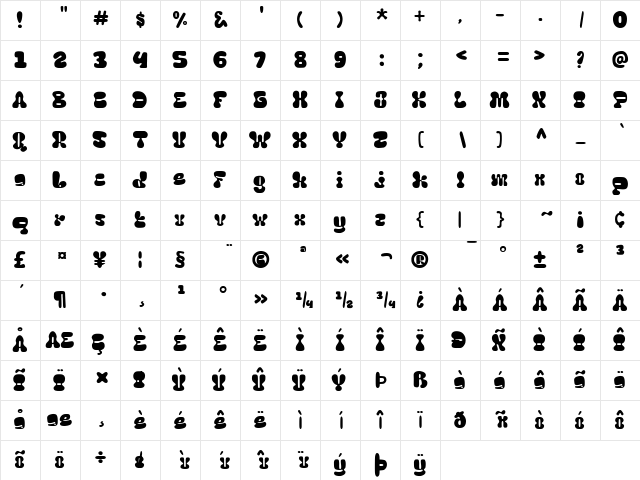
Menika Regular Free Font
Menika Regular
Foundry: Jetsmax Studio
Designer: Khairil Anwar
Design Context for Menika
Menika is a composed and adaptable typeface that performs quietly and consistently across a wide range of design contexts.